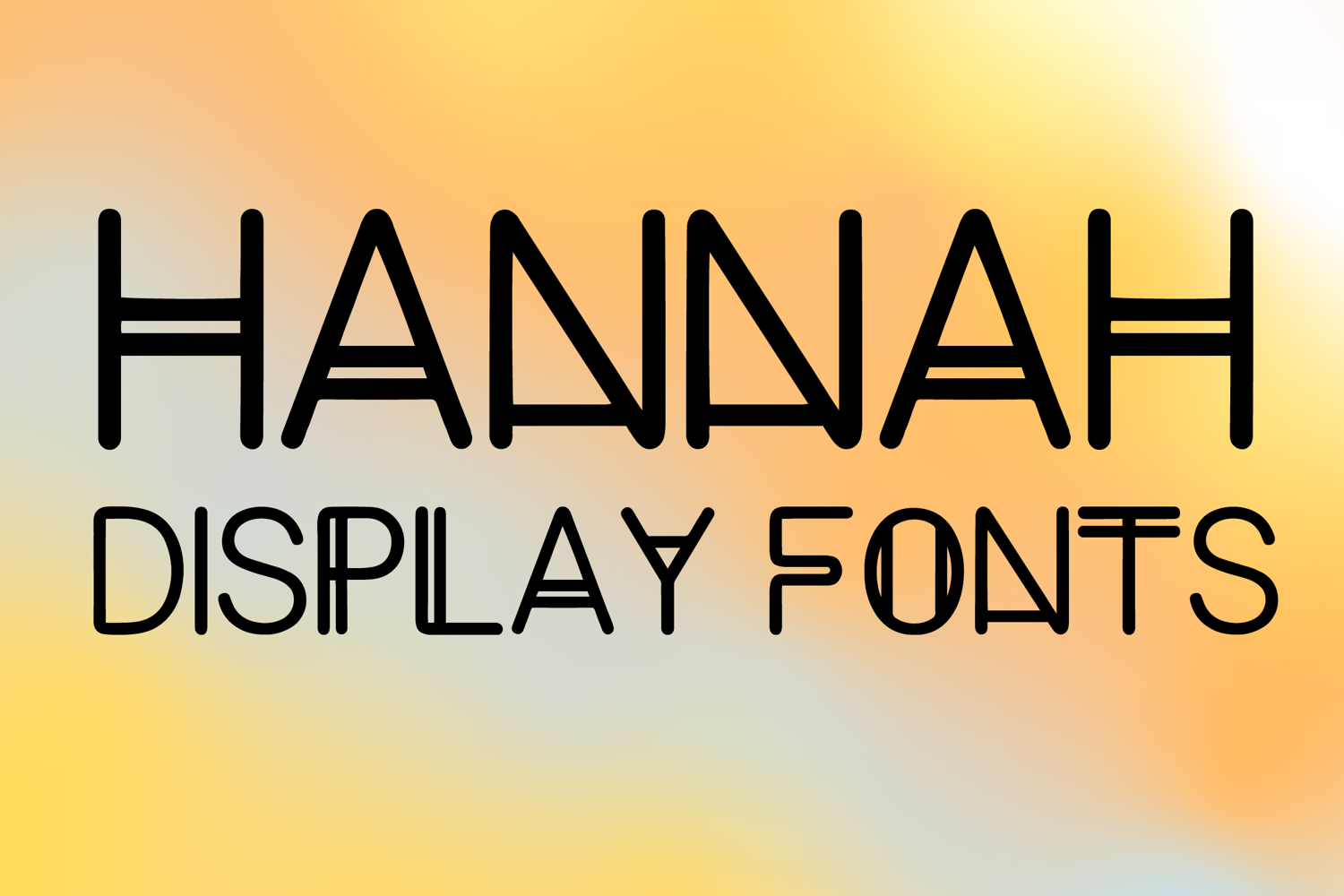
HANNAH
HANNAH-Regular
HANNAH is a modern geometric display font with a clean minimalist style and bold artistic character. Its uppercase letterforms feature tall rounded lines, sleek monoline strokes, and distinctive cut-line details that create a stylish, futuristic, and eye-catching look. Designed with uppercase letters A–Z and numbers 0–9, HANNAH is perfect for branding, logos, posters, packaging, headlines, social media graphics, and creative projects that need a fresh and memorable statement.